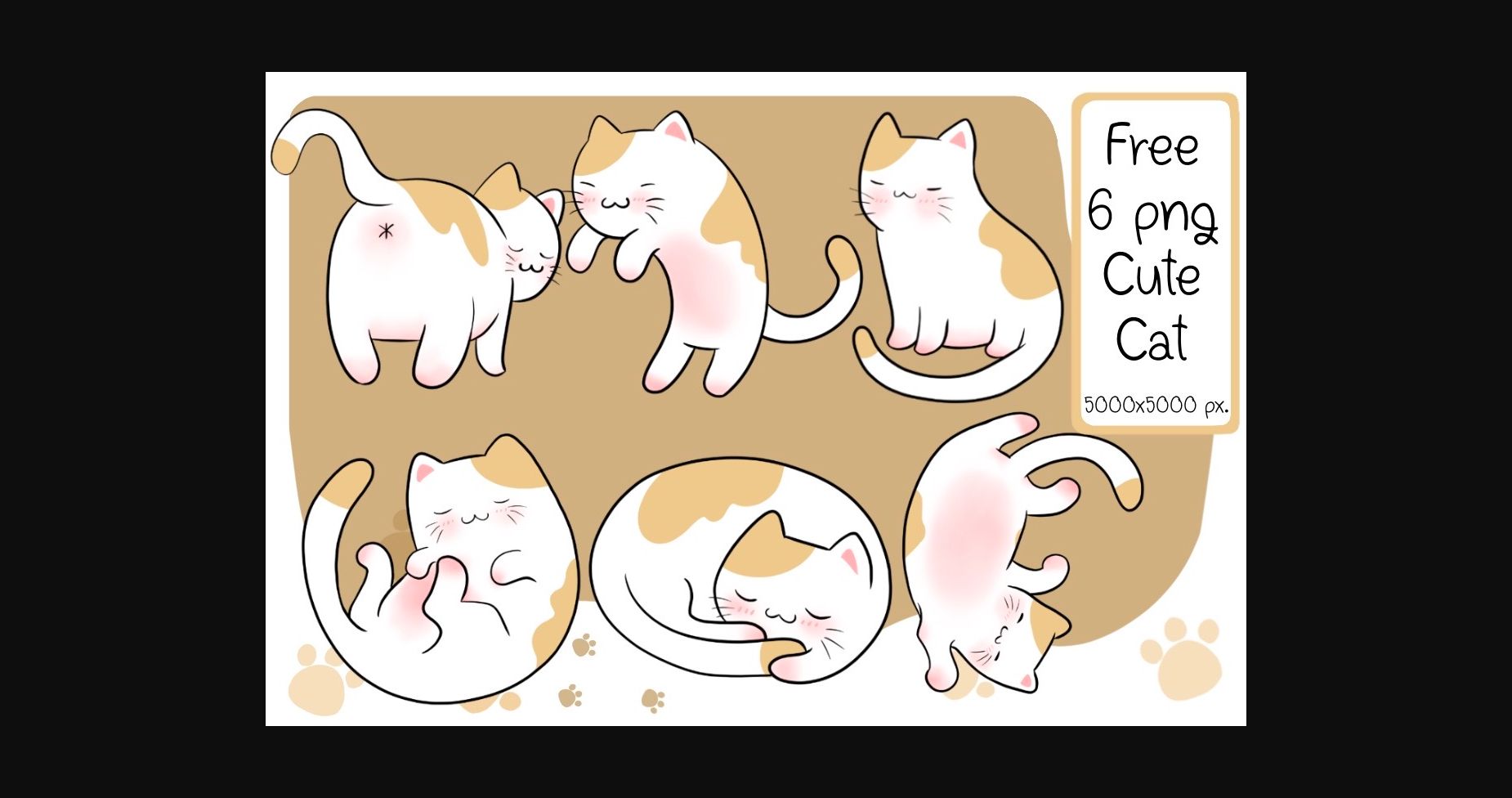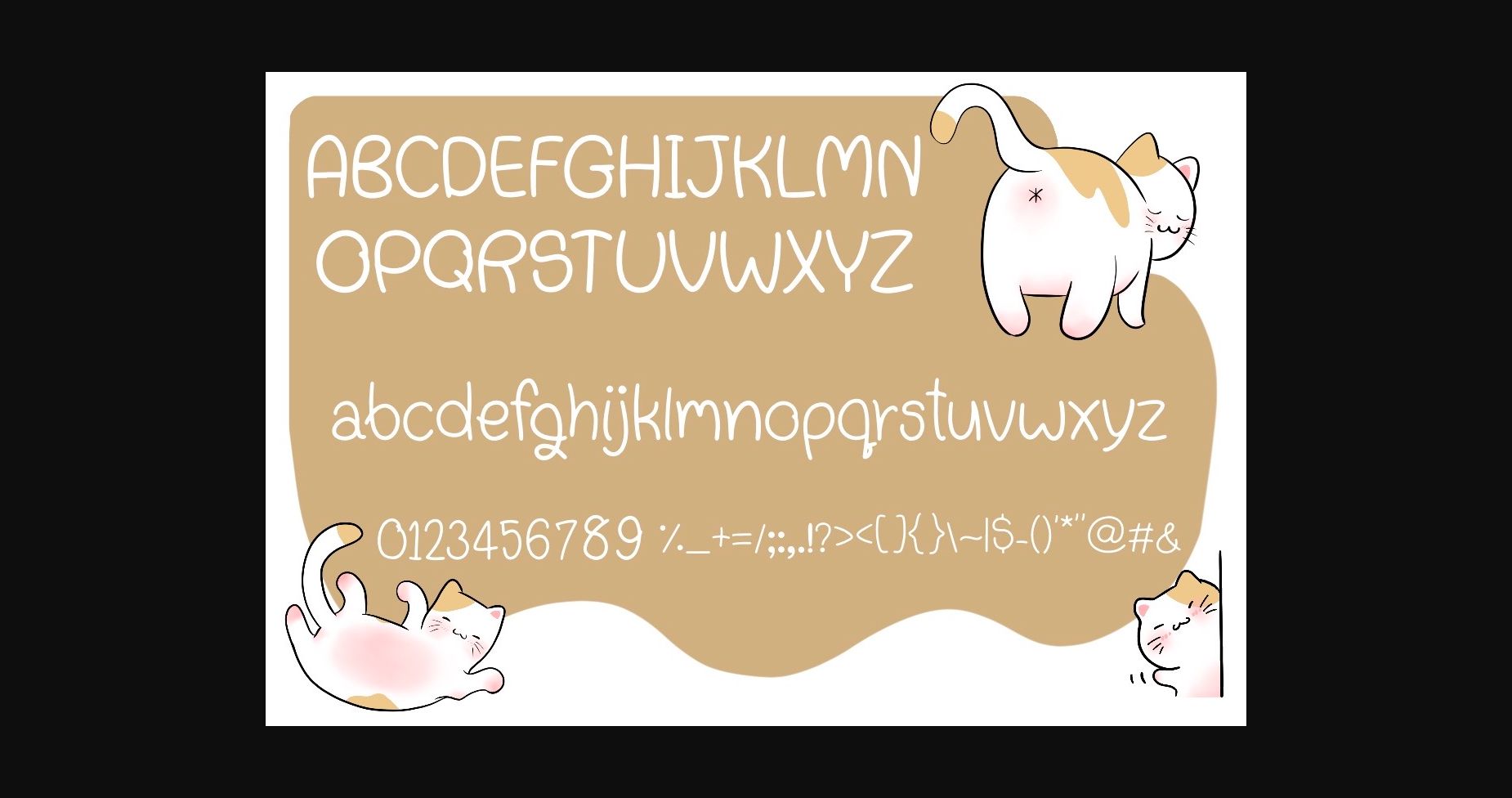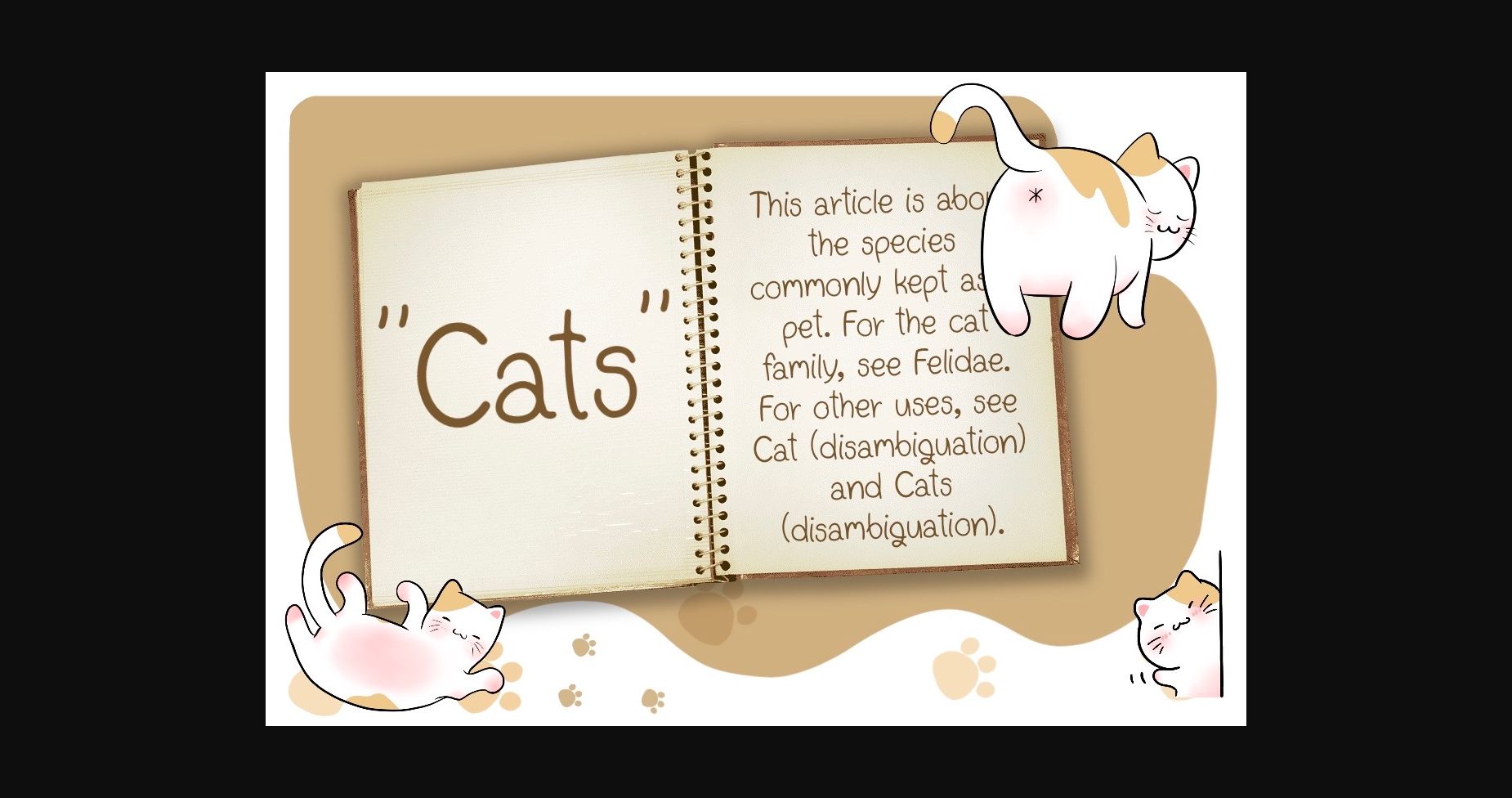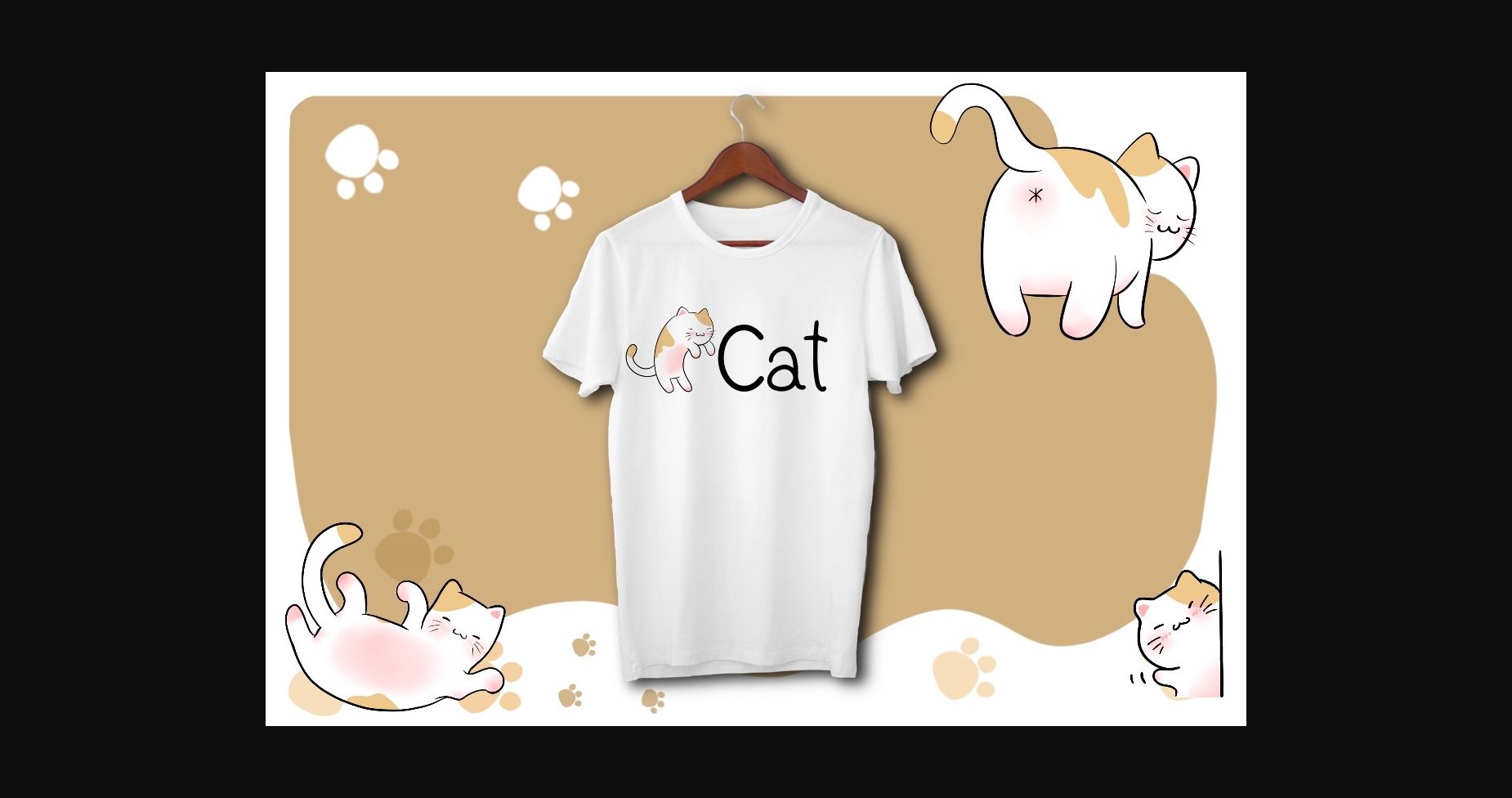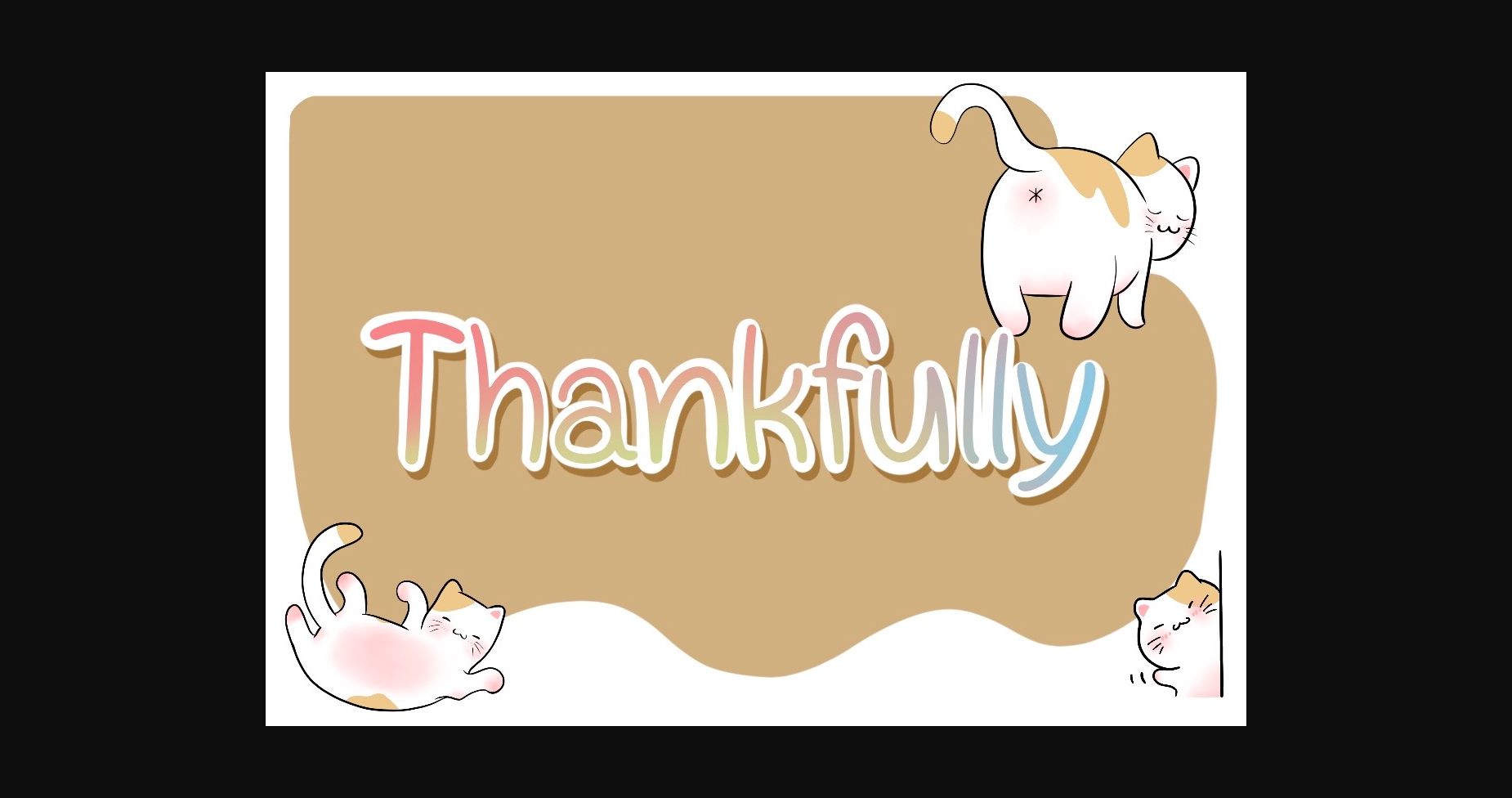
Meow Meow Font
About Meow Meow Font
Meow Meow is a cute and stylish script font, designed to add a touch of elegance to any project. With its graceful and fluid letterforms, this font exudes a sense of beauty and refinement that is perfect for branding, invitations, and editorial design.